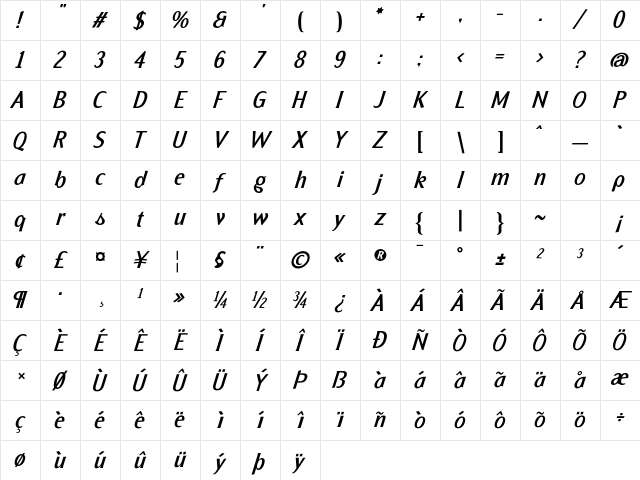
Formica BoldItalic
Design Context for Formica
Formica is a composed and adaptable typeface that performs quietly and consistently across a wide range of design contexts. The slanted form adds forward momentum and visual energy. Its bold stroke weight gives it real presence on the page.
Pro Tip: Use Formica for emphasis, pull quotes, and subheadings where its slanted energy can add rhythm to the layout.